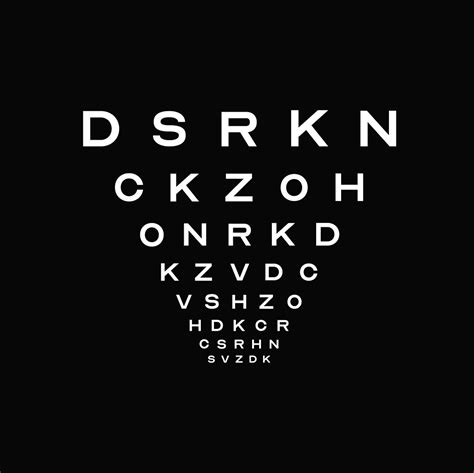
Eye Test Font. Web optician sans is a fully functional typeface and a continuation of the historical snellen and sloan letters. In these charts there were.
Optically adjusted for readability to be used as a fully functional display typeface. Size eyechart à by peter wiegel. Some jaeger charts have an. In these charts there were. In basic > various 39,243 downloads (13 yesterday) 1. Web optician sans is a fully functional typeface and a continuation of the historical snellen and sloan letters.
Web optician sans is a fully functional typeface and a continuation of the historical snellen and sloan letters. Optically adjusted for readability to be used as a fully functional display typeface. In basic > various 39,243 downloads (13 yesterday) 1. Some jaeger charts have an. Size eyechart à by peter wiegel. In these charts there were. Web optician sans is a fully functional typeface and a continuation of the historical snellen and sloan letters.